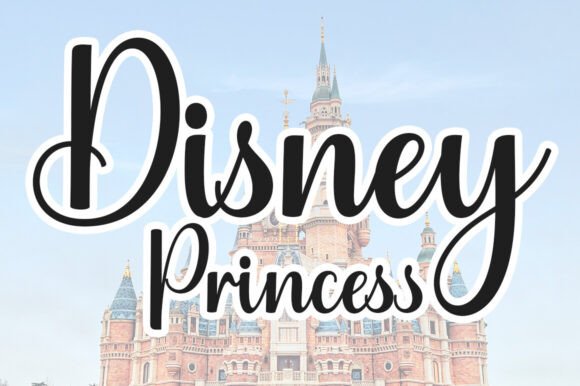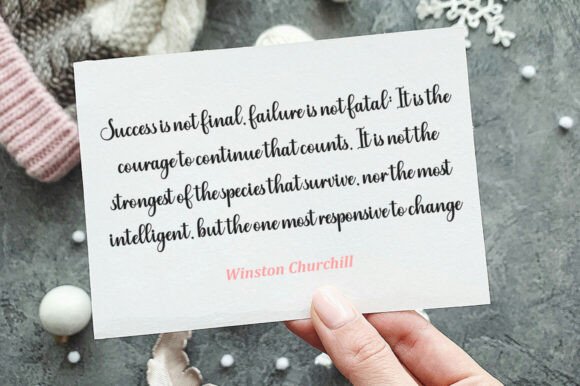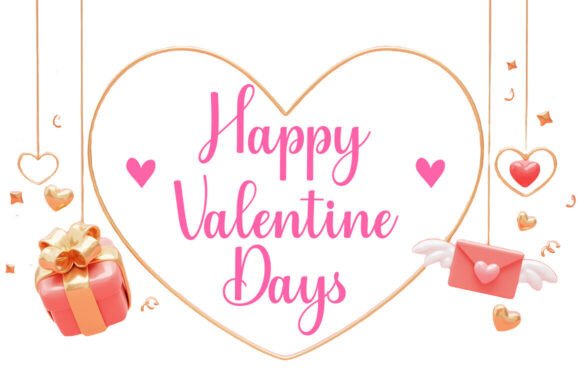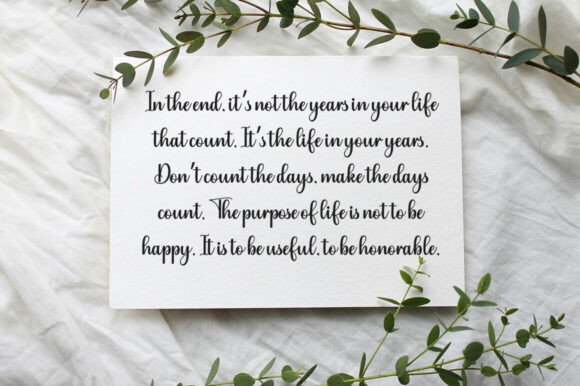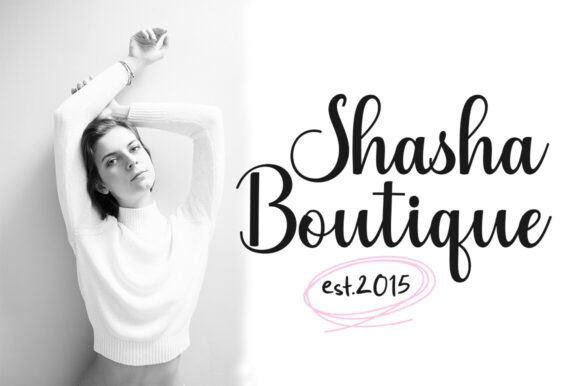
Baby Playing Font: A Delicate Handwritten Font for Unique Designs
Are you a designer or crafter looking for a font that can add a touch of personality to your creations? Look no further than the Baby Playing Font, a delicate handwritten font carefully crafted for a cool and unique design. This versatile font can be used to write letters, invitations, food products, titles, and more, making it a must-have for anyone looking to add a personal touch to their work.
What is Baby Playing Font?
Baby Playing Font is a beautiful, handwritten font that is designed to evoke a sense of playfulness and innocence. With its delicate lines and whimsical feel, this font is perfect for creating designs that are both fun and sophisticated. Whether you’re creating a logo, invitation, or social media graphic, Baby Playing Font is sure to make your design stand out.
Features of Baby Playing Font
So, what makes Baby Playing Font so special? Here are just a few of its key features:
- Delicate lines: The Baby Playing Font features delicate lines that give it a light, airy feel. This makes it perfect for creating designs that are both elegant and playful.
- Handwritten feel: This font has a distinctly handwritten feel, which gives it a personal and unique touch. It’s perfect for creating designs that feel approachable and friendly.
- Versatile: Baby Playing Font can be used for a wide range of design projects, from letters and invitations to food products and titles.
- Easy to read: Despite its delicate lines, Baby Playing Font is easy to read, making it perfect for creating designs that need to communicate a message.
Uses for Baby Playing Font
So, what can you use Baby Playing Font for? The possibilities are endless! Here are a few ideas to get you started:
- Invitations: Use Baby Playing Font to create beautiful, one-of-a-kind invitations for weddings, birthday parties, and other special events.
- Logos: This font is perfect for creating logos that are both playful and sophisticated. It’s a great choice for businesses that want to stand out from the crowd.
- Social media graphics: Use Baby Playing Font to create eye-catching social media graphics that will help you connect with your audience.
- Food products: This font is a great choice for food products, such as labels, packaging, and menus.
- Letters and cards: Use Baby Playing Font to create beautiful, handwritten letters and cards that will make your loved ones feel special.
Tips for Using Baby Playing Font
Here are a few tips for getting the most out of Baby Playing Font:
- Use it sparingly: Because Baby Playing Font is so delicate, it’s best to use it sparingly. Use it for headings or titles, and pair it with a simpler font for body text.
- Experiment with colors: This font looks great in a variety of colors, from soft pastels to bold brights. Experiment with different colors to find the one that works best for your design.
- Pair it with other fonts: Baby Playing Font pairs well with a variety of other fonts, from simple sans serifs to more elaborate script fonts. Experiment with different pairings to find the one that works best for your design.
| Font Name | Baby Playing Font |
| Author | Natural Ink |